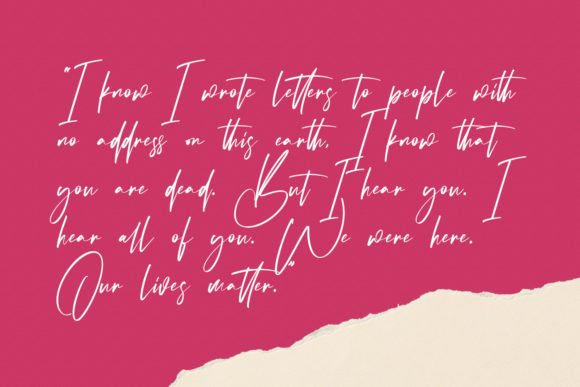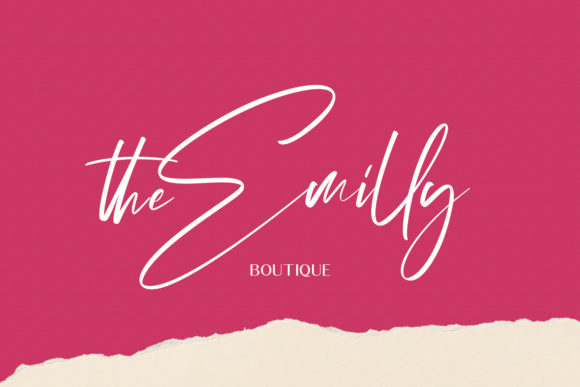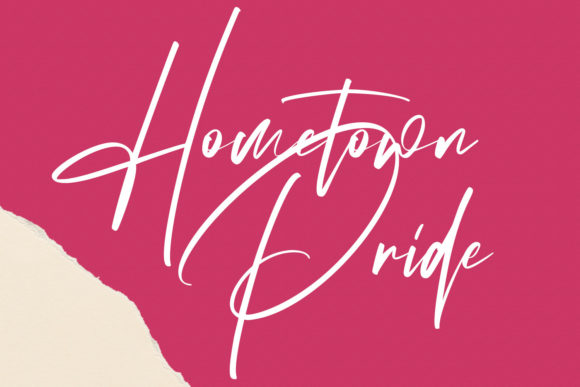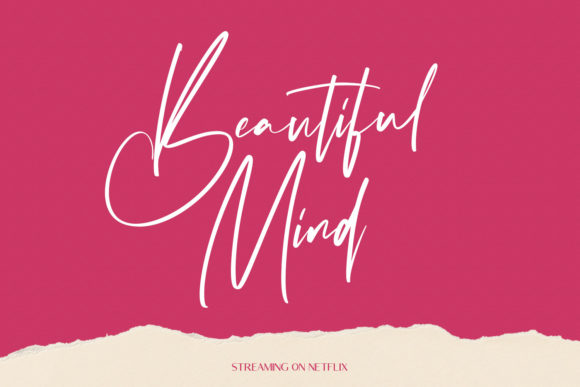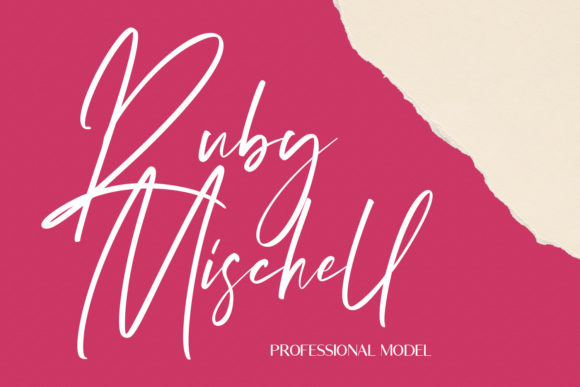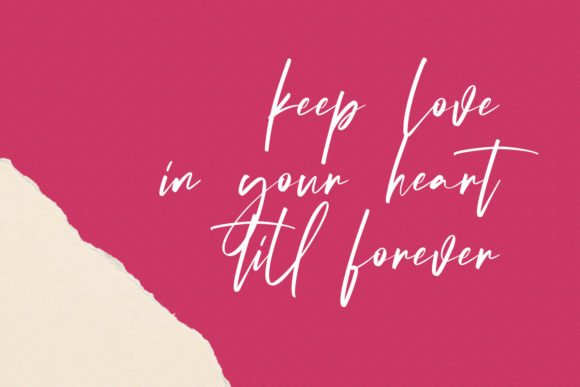
Discover the Elegance of Bettylovas Font: Elevate Your Designs with a Stylish and Delicate Script
In the world of typography, fonts play a crucial role in bringing designs to life. For designers and crafters looking for that perfect touch of elegance and trendiness, Bettylovas Font stands out as a remarkable choice. This stylish and delicate script font is not just a typeface; it’s an artistic statement that can transform any design project into a masterpiece. Whether you’re working on a branding project, crafting beautiful wedding invitations, or designing captivating social media graphics, Bettylovas Font is poised to become your go-to asset.
The Charm of Bettylovas Font
Bettylovas Font exudes a sense of sophistication and charm that is hard to find in other typefaces. Its delicate strokes and stylish script offer a fresh and modern look that can instantly elevate the aesthetic of your designs. The beauty of Bettylovas lies in its versatility; it can seamlessly fit into a wide array of design ideas, from the feminine and whimsical to the elegant and professional. This adaptability makes it an invaluable tool for designers who aim to create visually appealing and impactful content.
One of the key advantages of Bettylovas Font is its incredible versatility. It doesn’t matter if your project requires a subtle, understated look or a bold, eye-catching statement; Bettylovas can adapt to any design need. For instance:
- Wedding and Event Planning: Use Bettylovas to create stunning wedding invitations, save-the-date cards, and event posters that set the tone for a memorable occasion.
- Branding and Marketing: Add a touch of elegance to your brand’s logo, packaging, or marketing materials to stand out in a crowded marketplace.
- Social Media Graphics: Enhance your social media presence with beautifully designed posts, stories, and banners that capture your audience’s attention.
- Stationery and Crafts: Incorporate Bettylovas into your handmade crafts, journals, and stationery for a personal and sophisticated touch.
Why Bettylovas Font Stands Out
So, what makes Bettylovas Font a standout choice among the myriad of typefaces available? Here are a few reasons:
- Ease of Reading: Despite its delicate nature, Bettylovas maintains excellent readability, making it suitable for both headings and body text.
- Unique Character: Each letter in Bettylovas has its own unique character, adding a personal touch to your designs.
- Trendy Aesthetic: The font’s trendy aesthetic ensures that your designs look contemporary and appealing to modern audiences.
Tips for Using Bettylovas Font Effectively
To make the most out of Bettylovas Font, consider the following tips:
- Pair with Complementary Fonts: Combine Bettylovas with simpler fonts for a balanced look, especially when working on projects that require hierarchy.
- Adjust Size and Color: Experiment with different sizes and colors to create visual interest and emphasize key points.
- Consider the Background: Ensure that the background complements the color and style of Bettylovas to maintain readability and aesthetic appeal.
Bettylovas Font is more than just a typeface; it’s a design companion that can bring a new level of sophistication and trendiness to your projects. Its delicate yet stylish script offers endless possibilities for creative expression, making it an excellent addition to any designer’s or crafter’s toolkit. Whether you’re looking to create elegant branding, captivating social media content, or beautiful stationery, Bettylovas Font is sure to enhance your creations and leave a lasting impression.